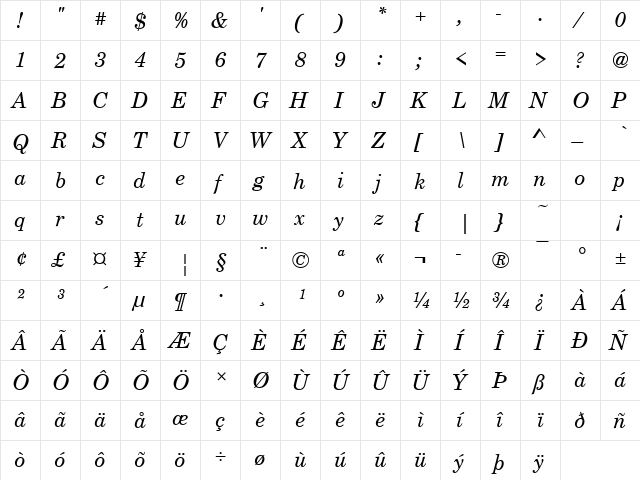
CenturySchT Italic
Design Context for CenturySchT Typeface
CenturySchT takes a measured approach to typography — its balanced proportions and neutral character make it a reliable workhorse for both digital and print work. The slanted form adds forward momentum and visual energy.
Pro Tip: Try CenturySchT for annotation and caption copy alongside an upright companion — the contrast in angle creates a dynamic but ordered typographic system.